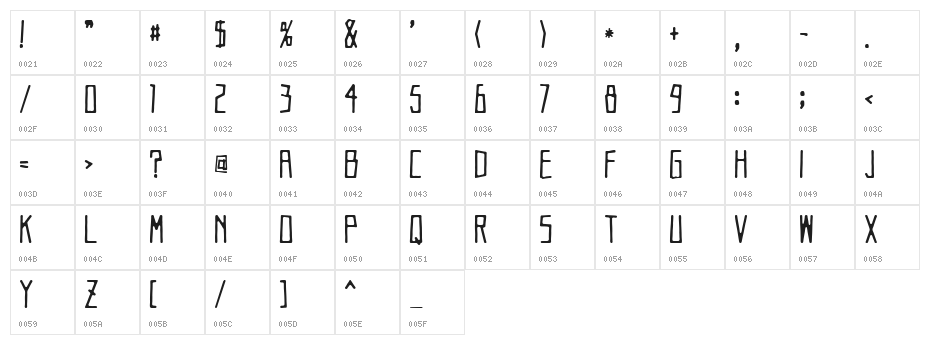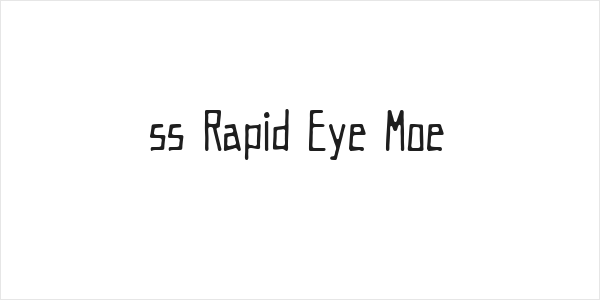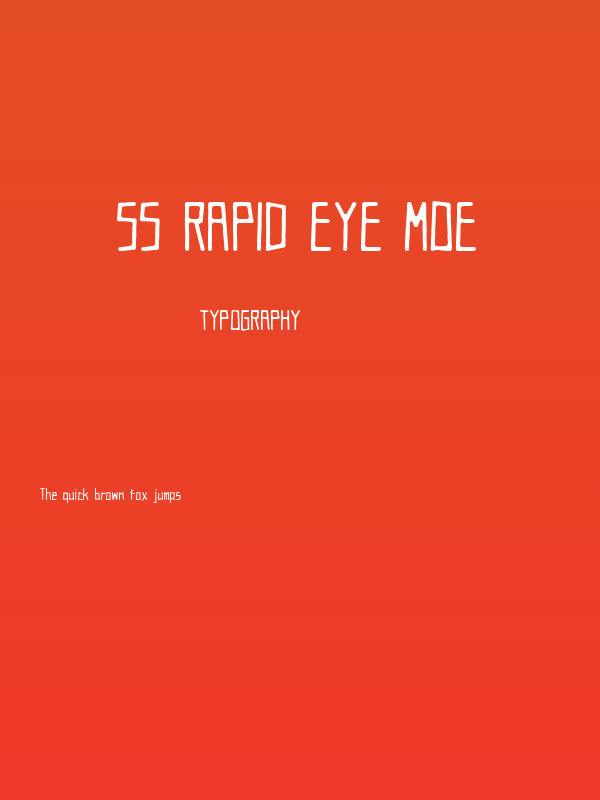
ss Rapid Eye Moe Font
ss Rapid Eye Moe Description
This font features a unique, hand-drawn style with irregular, organic lines that give it a playful and informal appearance. The characters are tall and narrow, with a slightly uneven baseline that adds to its quirky charm. The uppercase and lowercase letters maintain a consistent height, while the numbers and special characters blend seamlessly with the overall design. The strokes are bold and have a medium contrast, making the font stand out while remaining legible. Its distinctive style is well-suited for creative projects that require a touch of whimsy and personality.